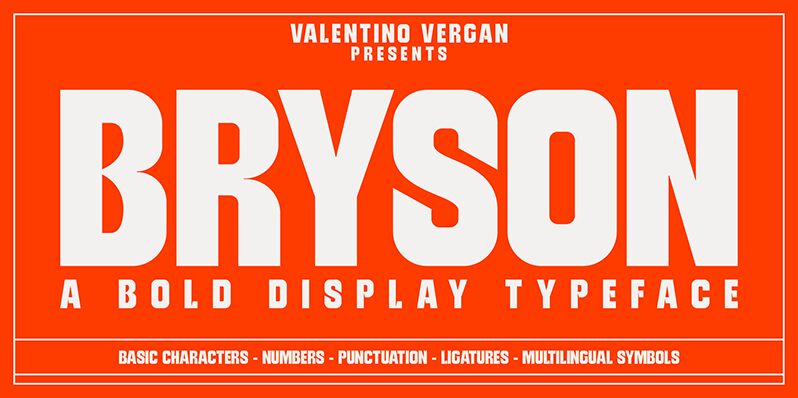
Bryson font by Valentino Vergan is a bold sans serif typeface characterized by simple yet distinctive shapes. Its strong, geometric design and tight kerning make it an impactful choice for those seeking a modern, clean-cut look. With influences from mid-20th-century designs, this free font is eye-catching and suitable for various projects.
Bryson can enhance retro designs, branding for tech companies, digital media headlines, posters, banners, brochures, web design, logos, business cards, signage projects and book covers. It stands out wherever a striking visual presence is desired.